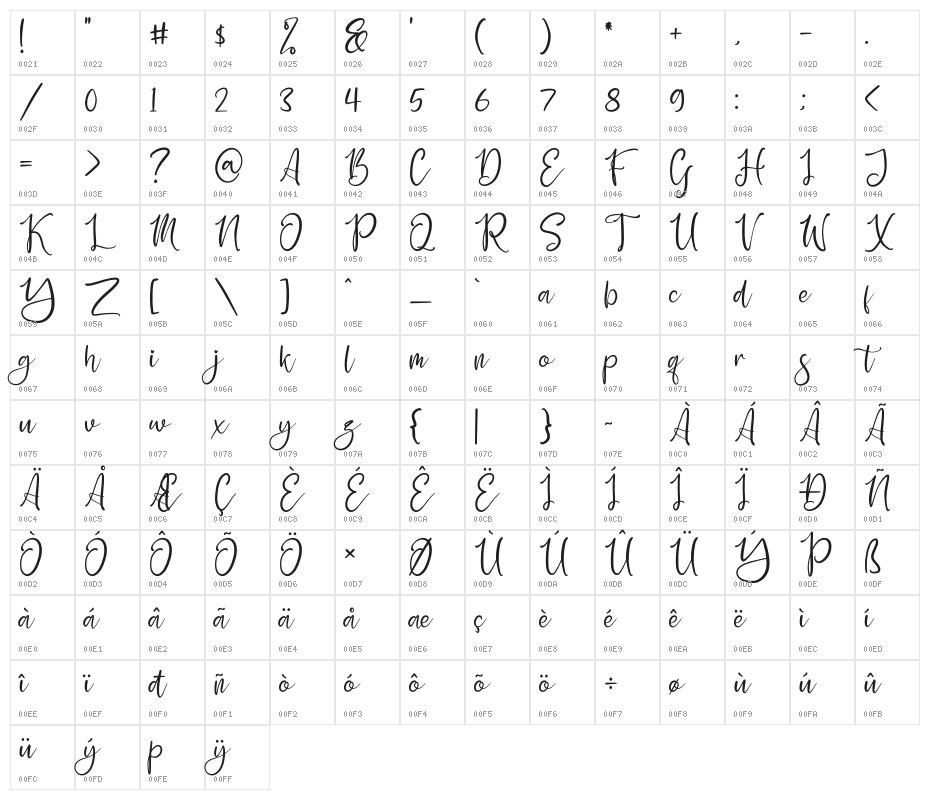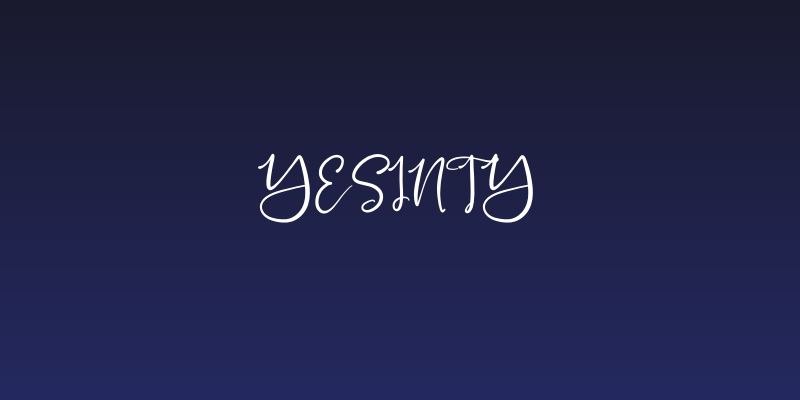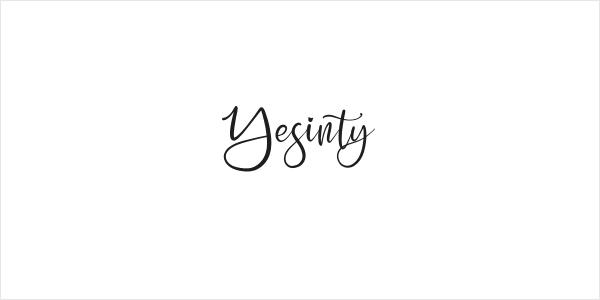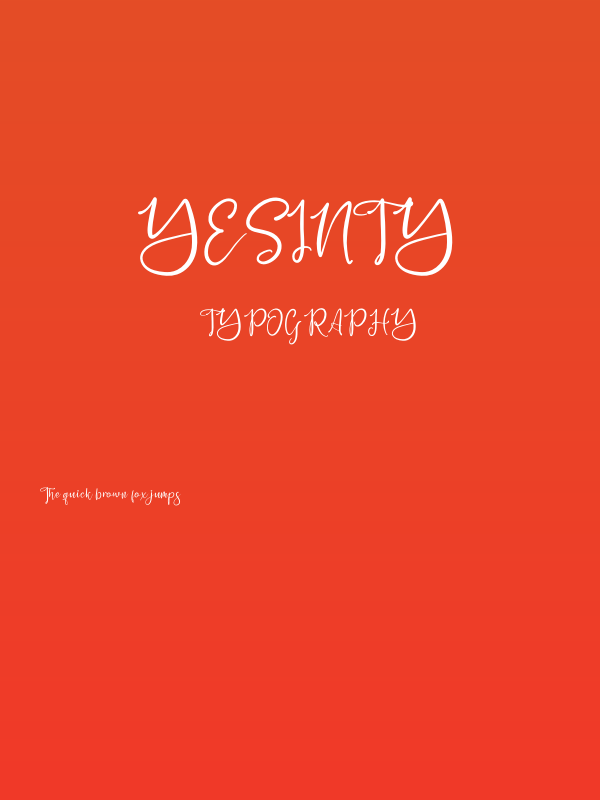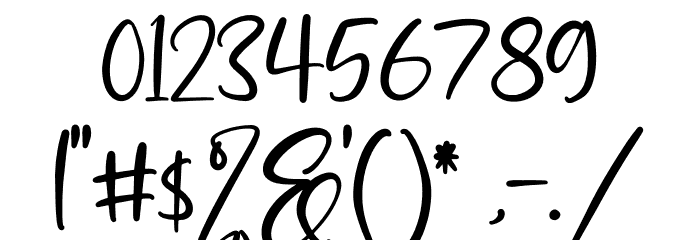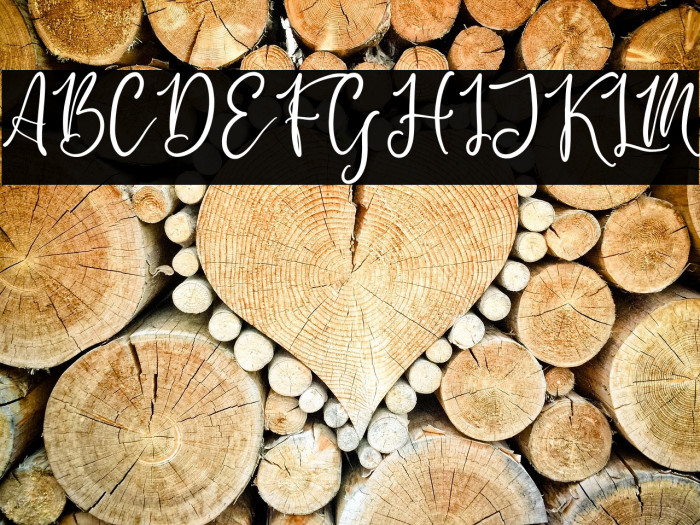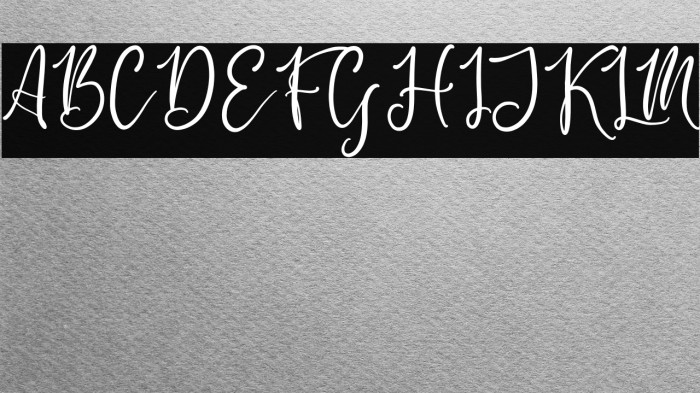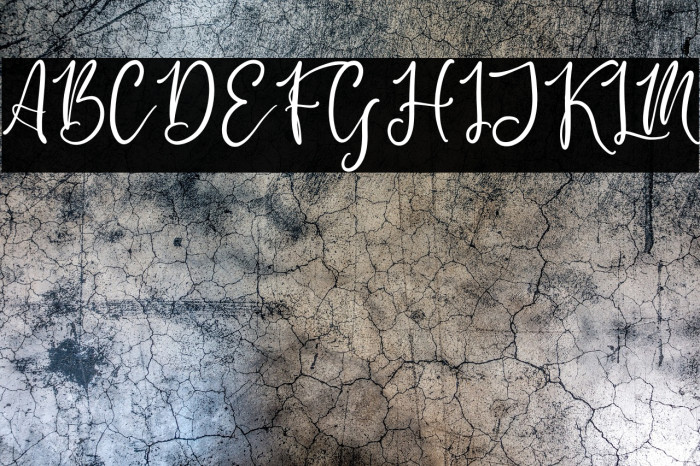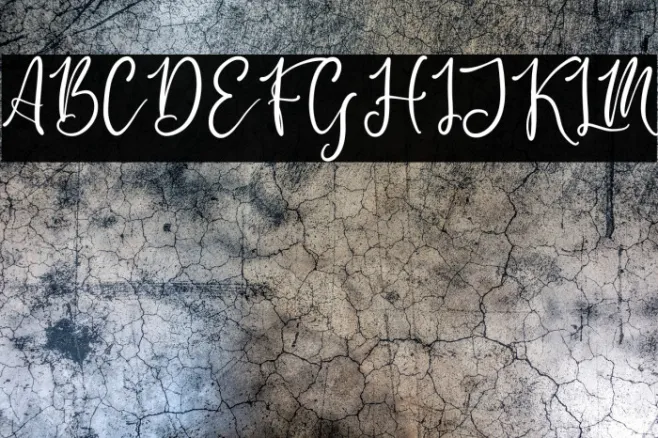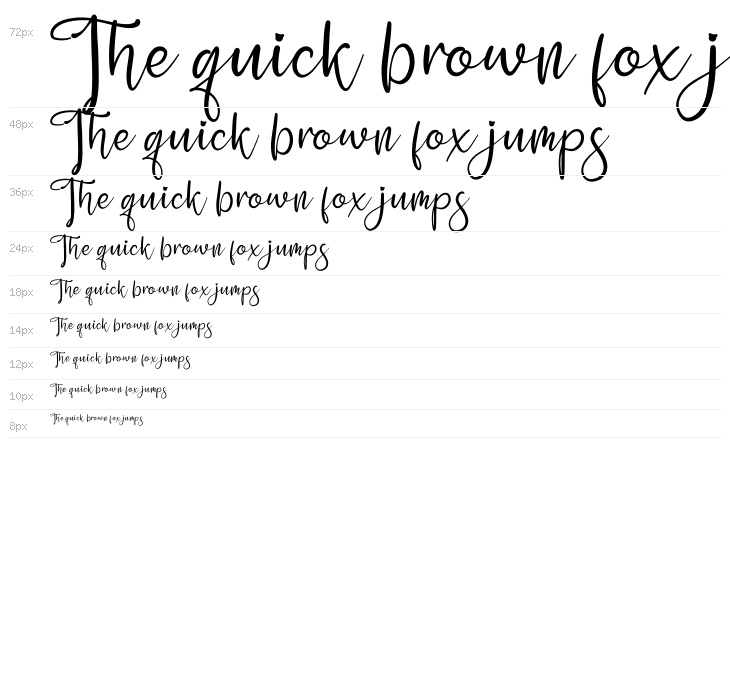
Yesinty Font
Yesinty Description
This font exudes a lively and expressive character, featuring a handwritten style with elegant, flowing lines. The uppercase letters are bold and dynamic, with a slight slant that adds a sense of movement. The lowercase letters maintain a consistent style, with loops and curves that enhance its handwritten appeal. Numbers are clear and legible, while special characters retain the same fluidity, making them blend seamlessly with the rest of the font. The overall design is both artistic and readable, suitable for creative projects that require a personal touch.
| Proposed Projects | Ideal for wedding invitations, greeting cards, personal branding, and creative projects requiring a personal touch. |